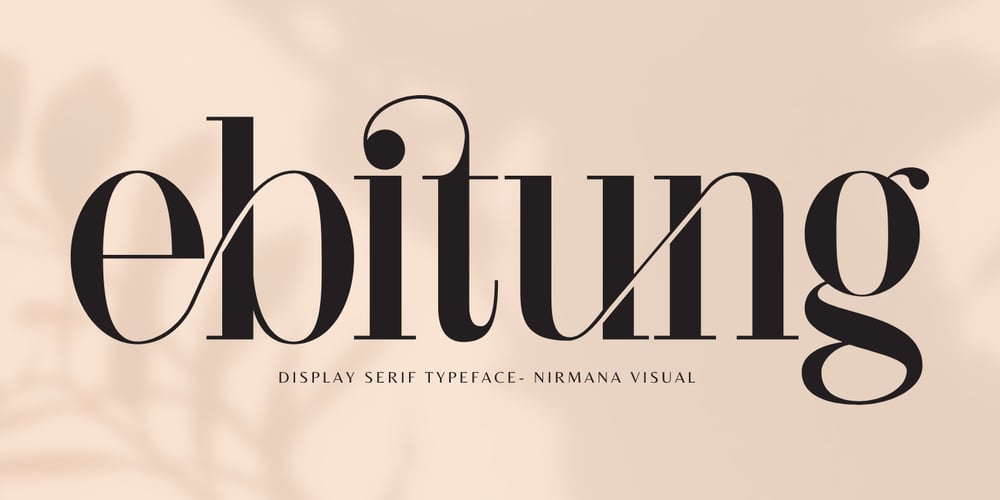
Ebitung Font Family was designed by Sigit Dwipa and published by Nirmana Visual. Ebitung contains 1 styles and family package options. Discover the artistry of type with our latest font, Ebitung. Specifically crafted for those who value sophisticated design, Ebitung brings a unique touch to your text through its exquisite ligatures.Ebitung stands out with its beautifully crafted ligatures, seamlessly connecting characters to create a fluid and elegant look. Each ligature has been meticulously designed to enhance readability and aesthetic appeal.